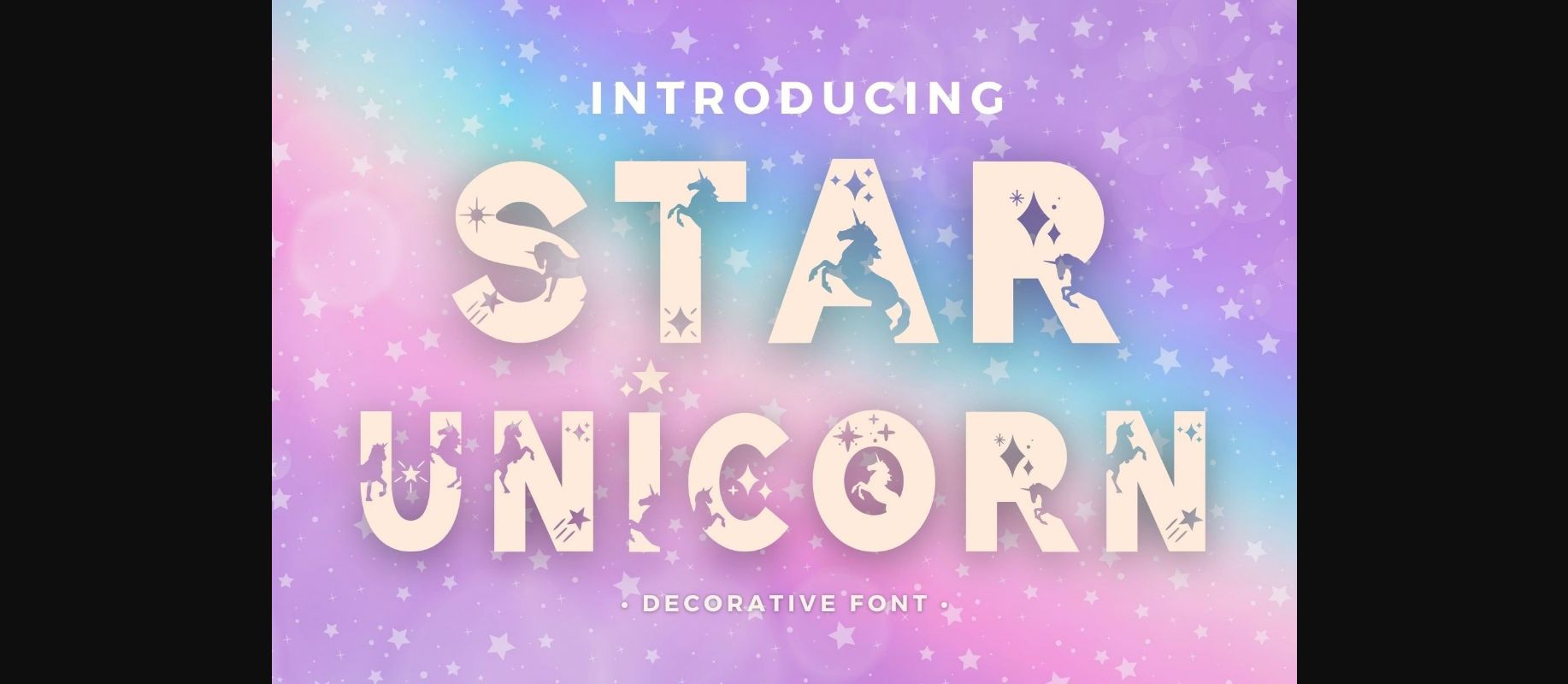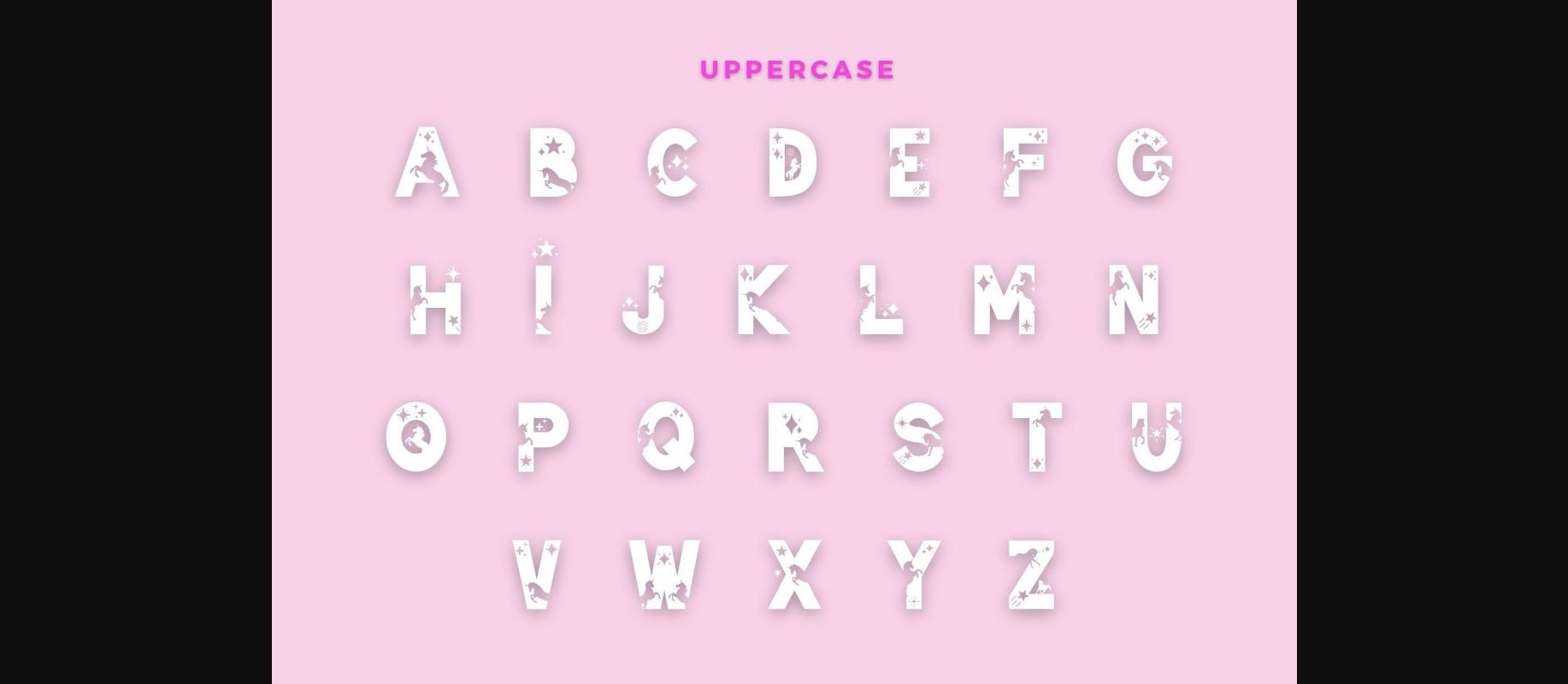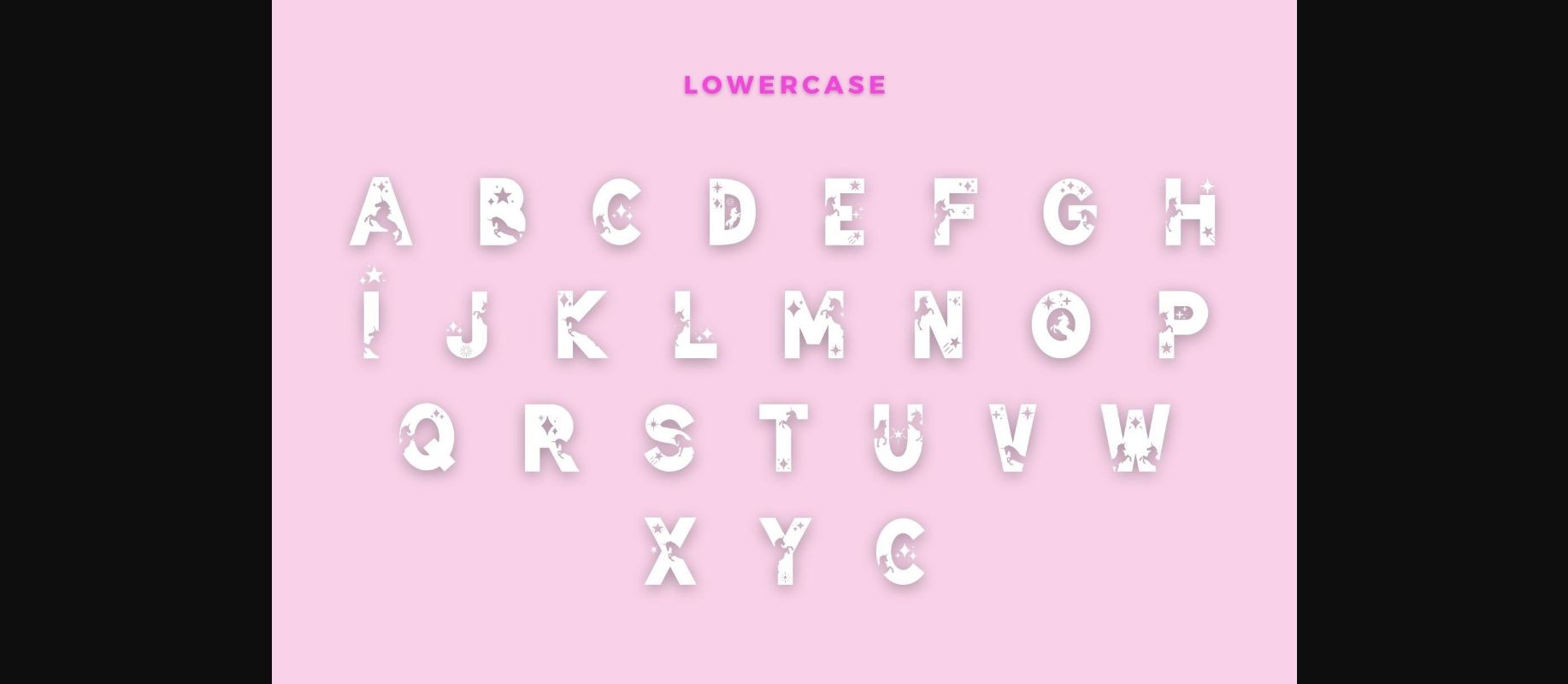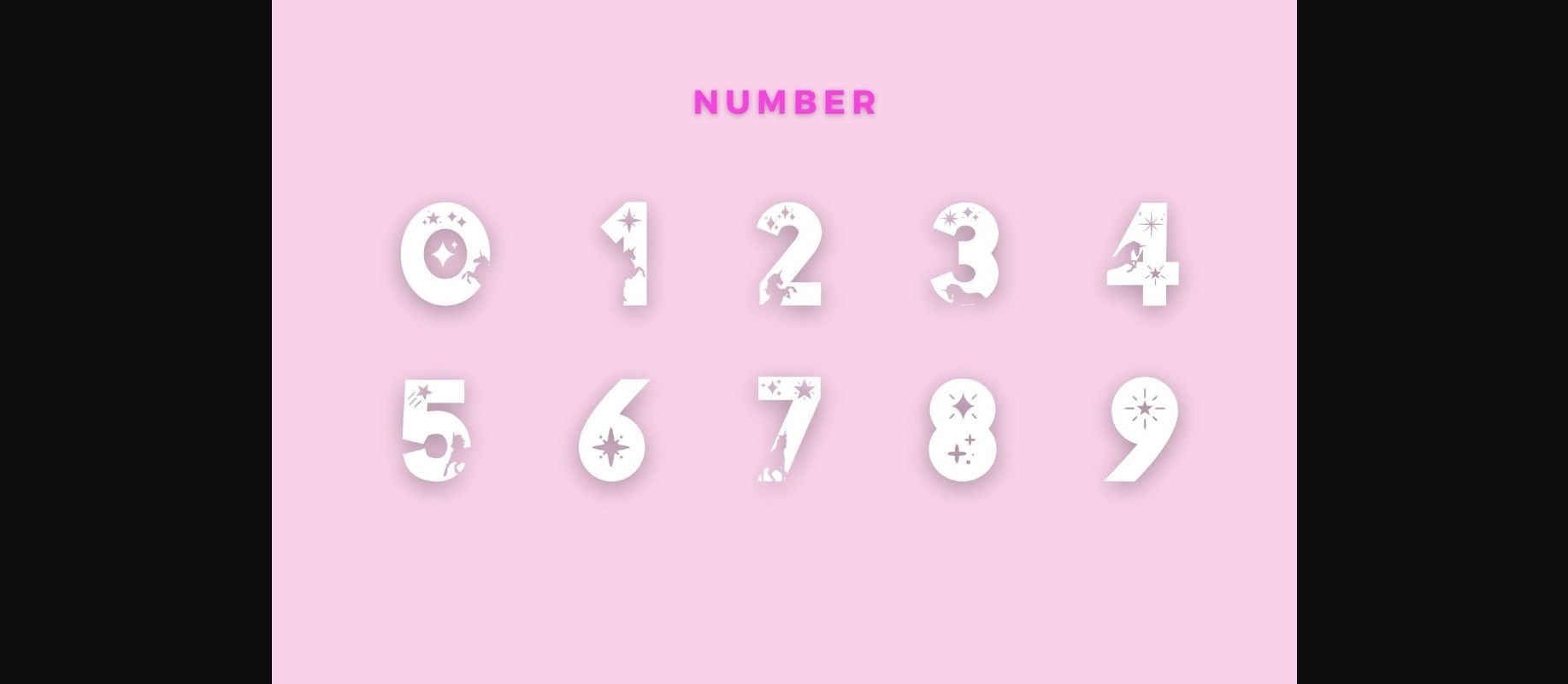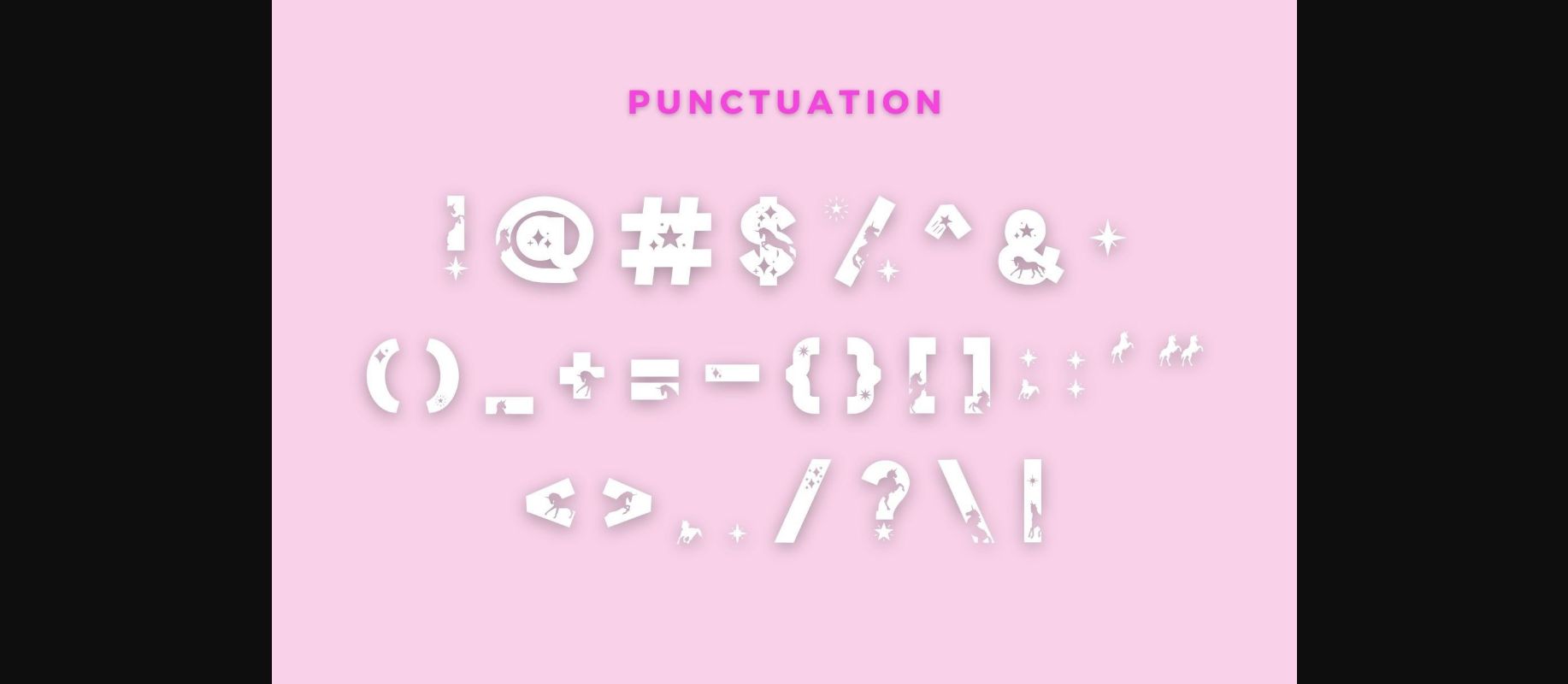
About Star Unicorn Font
Star Unicorn is a jolly and fun decorative font. It embodies playfulness and authenticity and is the perfect choice for various projects such as blog posts, logos, branding, ads, invitations, greeting cards, planners, photo albums, decorations, and much more. Add it to any of your designs, and enjoy the results!